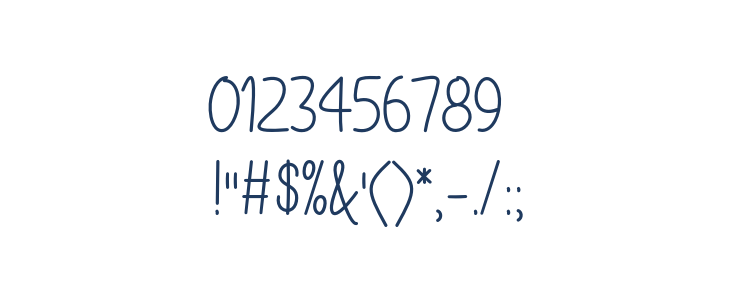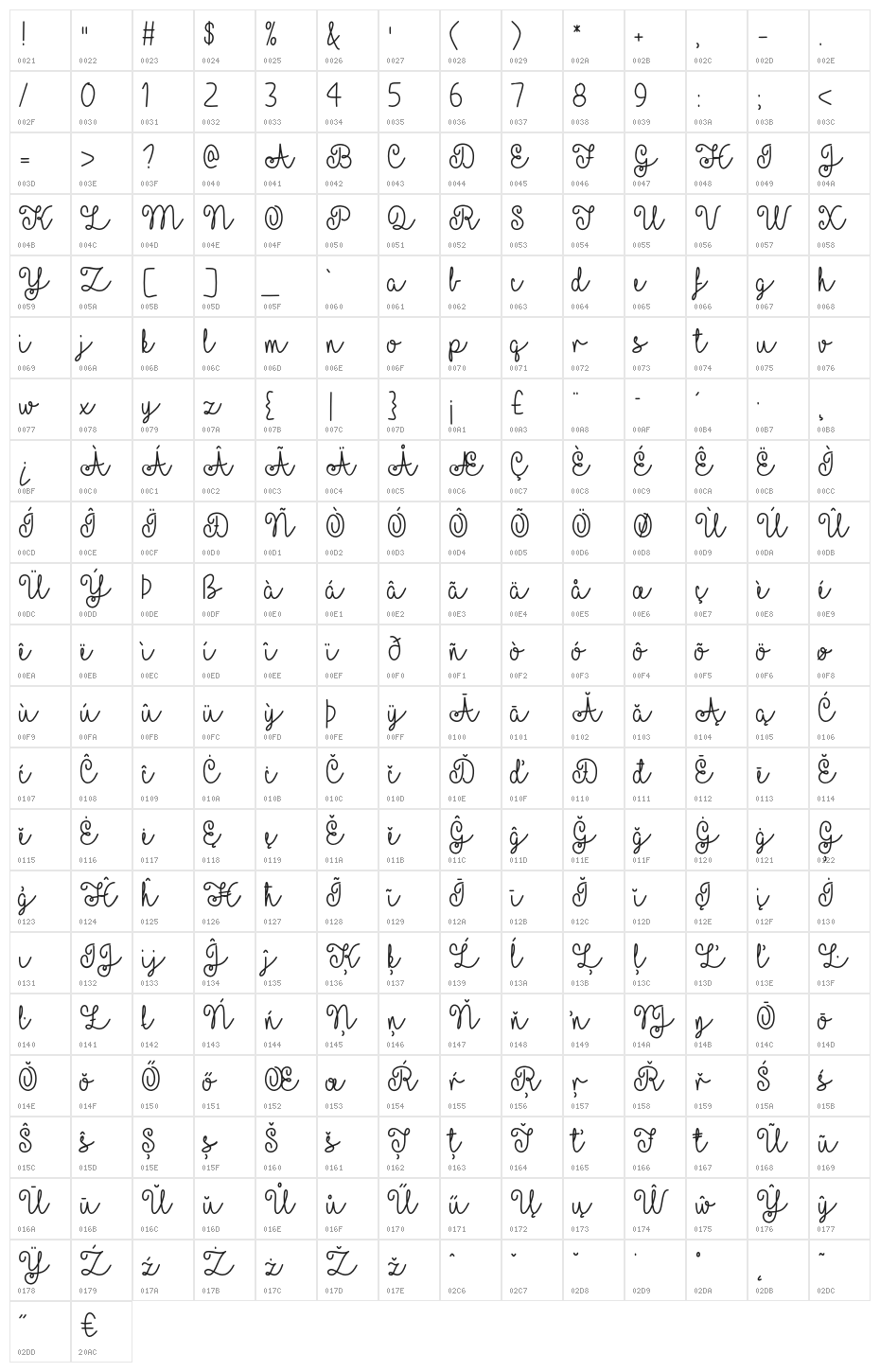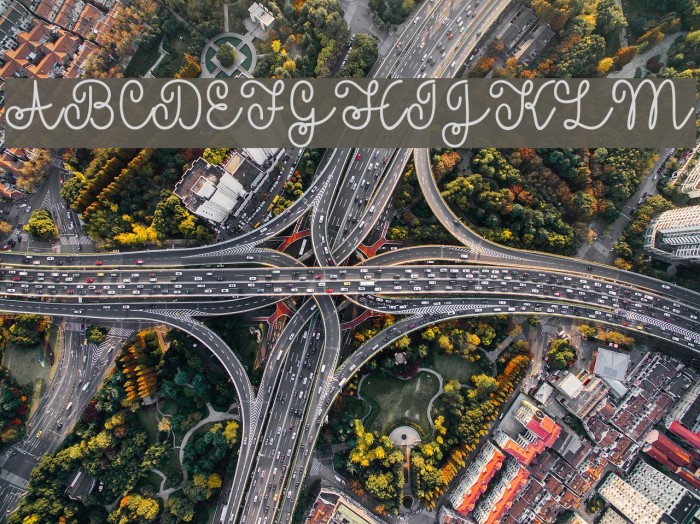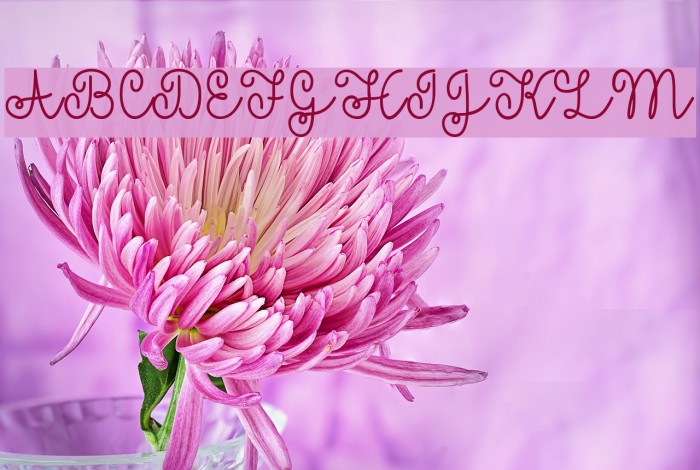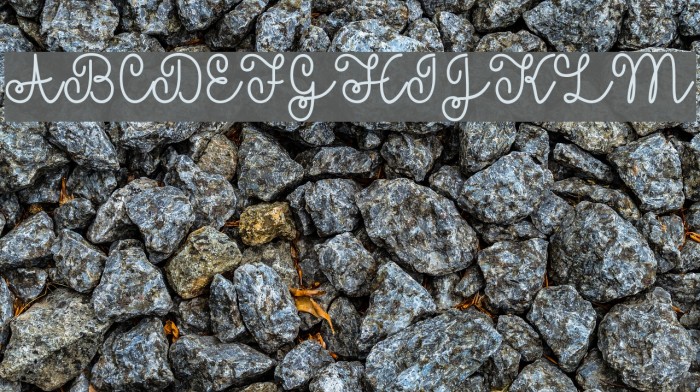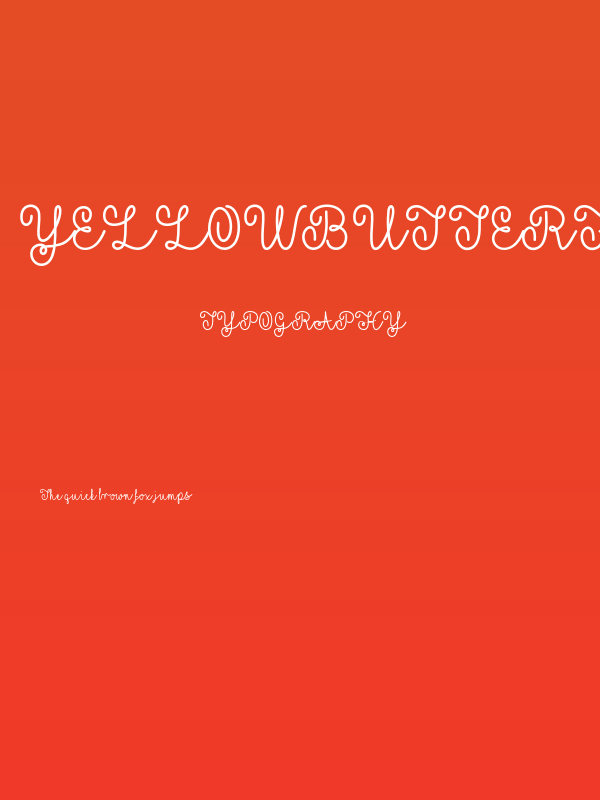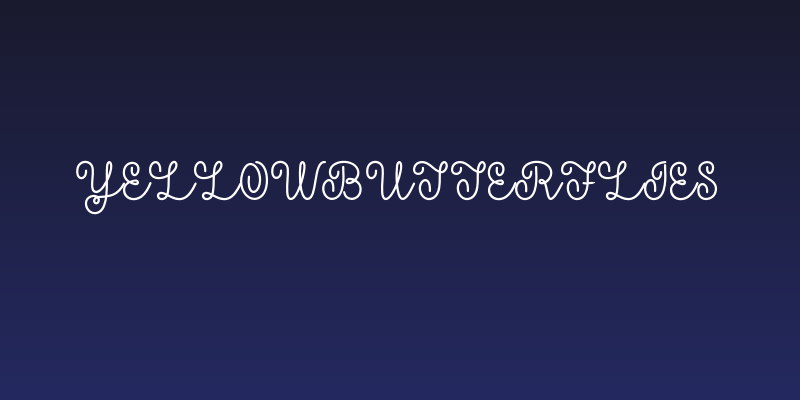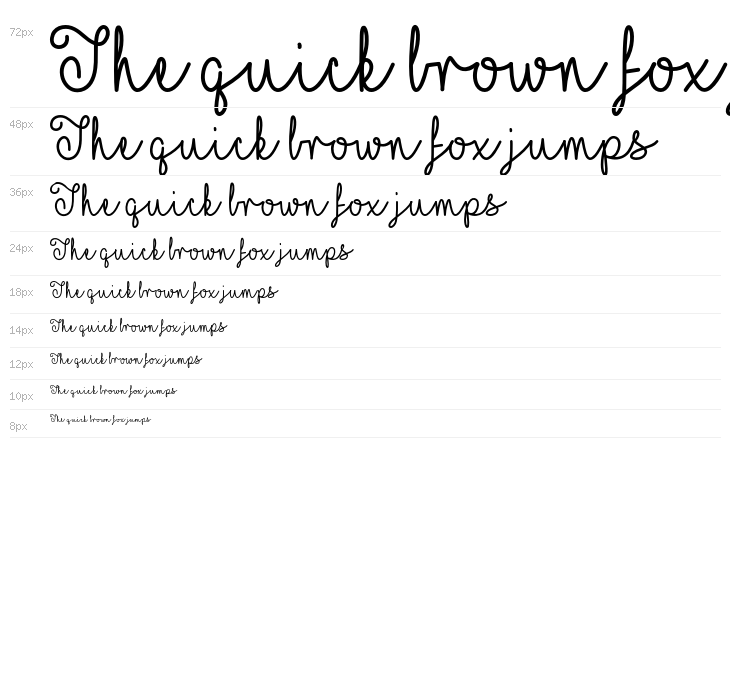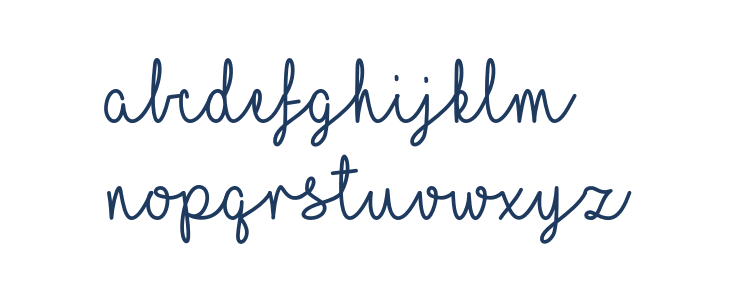
YellowButterflies Font
This font features a playful and whimsical script style, characterized by its flowing, interconnected letters. The uppercase letters maintain a consistent height and are adorned with subtle loops and curls, adding a touch of elegance. The lowercase letters are similarly connected, with smooth transitions between each character, creating a cohesive and fluid appearance. The numerals are clear and legible, maintaining the same playful style as the alphabet. Special characters are included, each designed to complement the overall aesthetic. This font is perfect for projects that require a personal and friendly touch, such as invitations, greeting cards, or branding materials that aim to convey warmth and approachability.
| Overall Style | Playful |
| Use Case | Logos, Invitations, Greeting Cards |
| Proposed Projects | Ideal for invitations, greeting cards, personal branding, and playful design projects. |